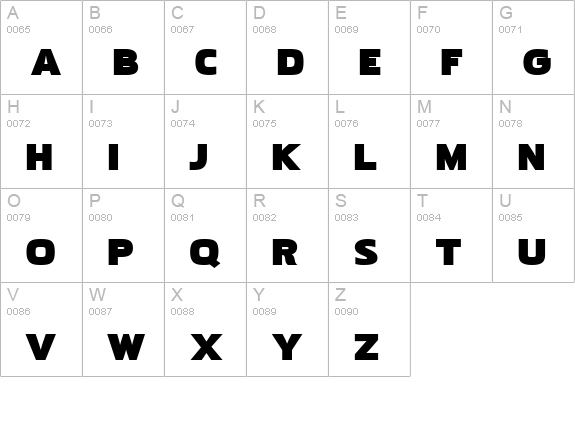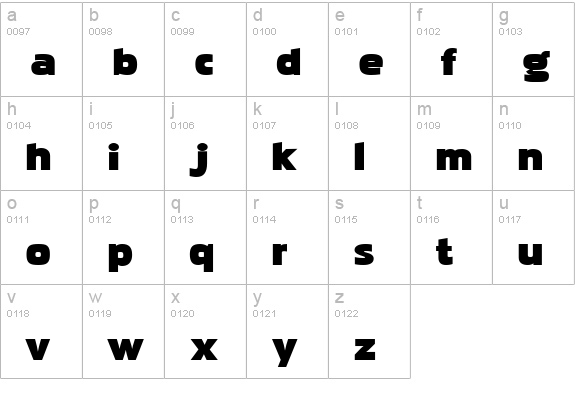
Pakenham Kayo font is a stunning display typeface that exudes elegance and sophistication. With its sleek lines and modern aesthetic, this font is perfect for a wide range of design projects, from logos to branding to invitations. The unique letterforms of Pakenham Kayo font make it stand out from the crowd and add a touch of class to any design. Best of all, Pakenham Kayo font is completely free to download at FontsMarket.com. This means you can add this beautiful font to your collection without breaking the bank. Whether you're a seasoned designer or just starting out, Pakenham Kayo font is a versatile and stylish choice that will elevate your work to the next level. Download Pakenham Kayo font today and see the difference it can make in your designs!